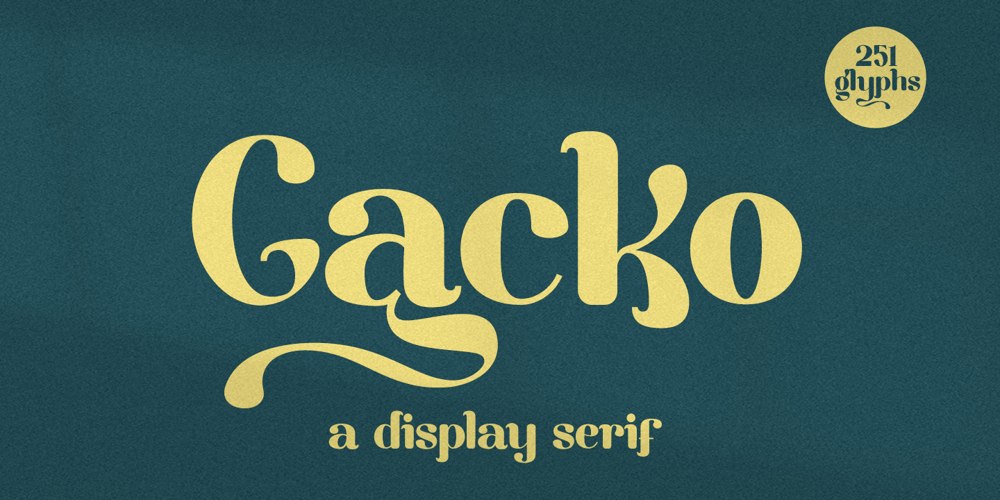
Gacko Font Family was designed by Dian Haniffan Hadi and published by Beary. Gacko contains 1 styles and family package options. Are you looking for a display serif type with fun Ligature? You came to the right Font.Gacko is a display serif type with fun Ligature look attractive and natural. Masterfully designed to become a true favorite, this font has the potential to bring each of your creative ideas to the highest level!Every single letters have been carefully crafted to make your text looks beautiful.Gacko is PUA encoded, which means you could access all of the glyphs!Every letter has a unique and beautiful touch, which will make your design come alive!Thanks